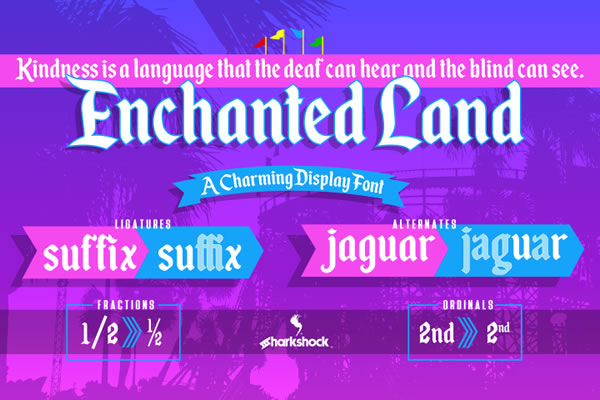
Enchanted land is a charming display font. It can be used for various purposes such as headings, logos, invitations, t-shirt designs, greeting cards, posters, labels, book covers, brochures, and much more!